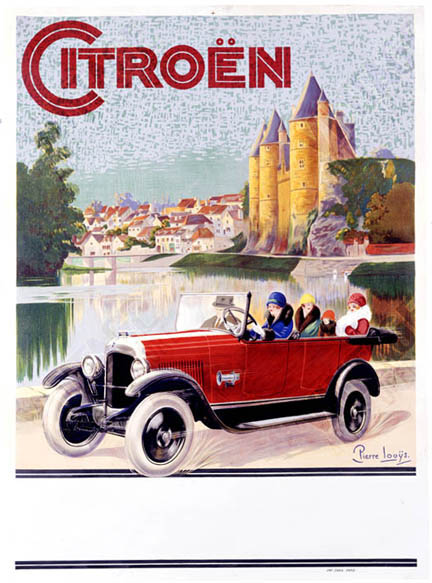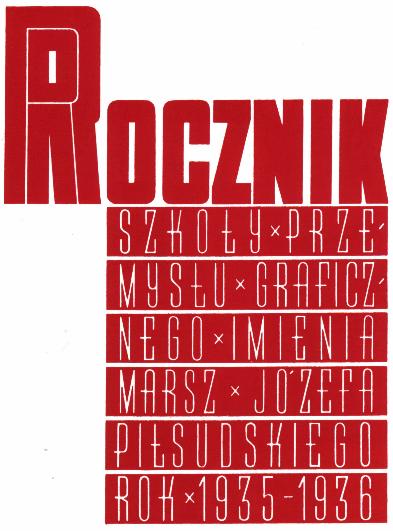
This list contains information on Nick Curtis's free faces not discussed or mentioned under other themes. A visual summary of all his free faces: A, B, C, DE, F, G, HIJ, KL, M, NO, P, QR, S, T, UVWXYZ. Generally, Nick Curtis specializes in display type, revivals and interpretations. - Aerojones (2002). Based on a 1933 poster by George Guillermaz.
- AndironOutlineNF.
- BeautySchoolDropout, BeautySchoolDropoutII, BeautySchoolDropoutIIS.
- BellhopNF. Based on this poster.
- Blue Plate Special NF (based on a 1929 face by John Zimmerman at BBS called Cubist Bold). See also BluePlateSpecialSW.
- BoyzRGrossNF, BoyzRGrossShadowNF. Handprinted faces.
- BuenosAiresNF. Based on this poster.
- ChockABlockNF. Toy letter cubes.
- ChocolateDropsNF. Based on this poster by William Austin Starmer (1902).
- CoventryGardenNF.
- DancingDonutsNF, DancingDonutsRevised.
- EmporiumNF. Based on this poster by Fortunato Depero (1927).
- FacetsNF (2003). Based on this poster by Ruprich (1930).
- FashionVictim. FashionVictim (1999). Think Bernhard Fashion.
- FontleroyBrownNF. CheapProFonts did a Pro version in 2009.
- Forty-SecondStreet (NF, HB). Based on this inline alphabet that is genetically linked to Koch's Neuland.
- FrankensSteinCapital.
- Full-TiltBoogieNF, FullTiltBoogieCapital. Based on Obtuse (1931, A. Bardi).
- GrandPrixRevised, GrandPrixSpectacular.
- HobbyHorseNF (2000).
- JungleFeverInlineNF, JungleFeverNF. The commercial version is from 2008. Jungle Fever (2008) is patterned after Neuland Black (Rudolph Koch for Gebr. Klingspor in 1923), and the sunshine shading version is called Jungle Fever Shaded.
- KurvaceousNF.
- LagniappeInlineNF.
- LittleLordFontleroyNF (2000).
- MiddleEarthNF-Medium, MiddleEarthNF (2003). Based on a 1914 poster by F. Marx.
- MidlandRailNF, MidlandRailShadowNF. Based on this poster.
- MinstrelPosterNF, MinstrelPosterTwoNF, MinstrelPosterWHG.
- ModernTypographyNF.
- MyGalSwoopyNF (2002). Based on Shograd (1924).
- Namesake (2002). Loosely based on Allan Gothic by Allan Brandtner.
- Nickodemus-Extremus. Based on Aldous or Huxley Vertical.
- NotMaryKateNF. Oskar Kress's font Kress Versalien (1926, Schriftguss AG) inspired Nick Curtis to make Not Mary Kate NF.
- OldGateLaneNF, OldgateLaneOutline.
- Otto Heim revivals from Heim's book Farbige Alphabete (1925): Captain Swabby NF (2003, free), Halcyon Days NF (2007, not free), Monkey Fingers NF (not free), Walrus Gumbo NF (free, after a 1925 face by Otto Heim; the commercial version of Walrus Gumbo NF appeared in 2011), Riot Squad NF (2000, free).
- OurGangNF (1999).
- PackardClipperNF (2003). Inline face based on this Citroen ad by Pierre Louts (1925).
- PointsWestNF.
- PopularCafeAA, PopularCafeNF. Based on these posters by Rae (1927).
- PublicEnemyNF. Based on this Jimmy Cagney movie poster.
- RicksAmericanNF (2002).
- Roller Coaster (2000).
- Sho-CardCapsNF, ShoCardCapital. An adaptation of Futura Display.
- SwishButtonsNF. Dingbats.
- TestarossaNF (2002). Based on this 1907 poster by Leopoldo Metlicovitz.
- ToylandNF, ToylandOutlineCapital. These faces are outlined and shadow-cast versions of ITC Motter Corpus by Othmar Motter.
- Troglodyte NF (2006). Curtis: This fine fat face is based on a font called Advertisement Grotesque, discovered in a 1942 book entitled Lettering Alphabets for Draughtsmen, Advertisement Designers, Architects&Artists, by the intrepid Alfred Bastien. In 2011, he changed that description after discovering that in fact the design goes back to Albert Auspurg' Messe Grotesk (1921-1927).
- TropicanaNF (2003). This is based on Elancé by A. Bardi (1931).
- UndergroundNF (1999). Commercial version in 2009. This revives Edward Johnston's The Underground for London's metro.
- VielleVarsovieNF (sic)(2003). Based on I. Rubin's constructivist poster from 1936.